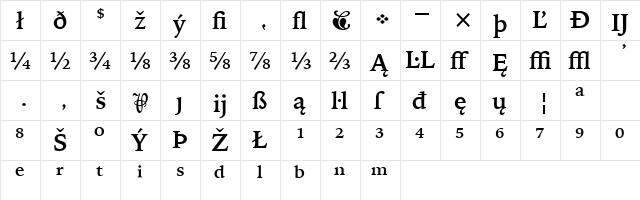
IowanOldSt Ext BT Bold Extension
Design Context for IowanOldSt Ext BT Typeface
IowanOldSt Ext BT takes a measured approach to typography — its balanced proportions and neutral character make it a reliable workhorse for both digital and print work. Its bold stroke weight gives it real presence on the page.